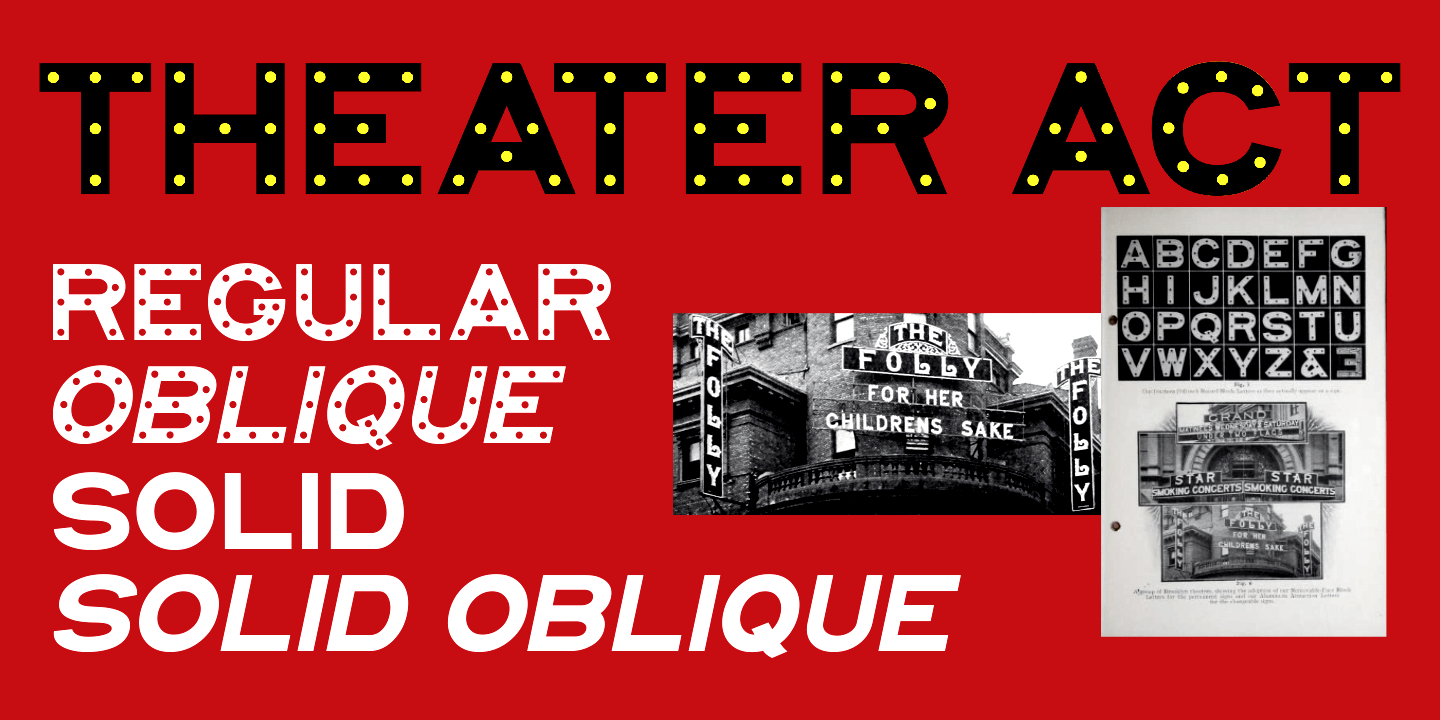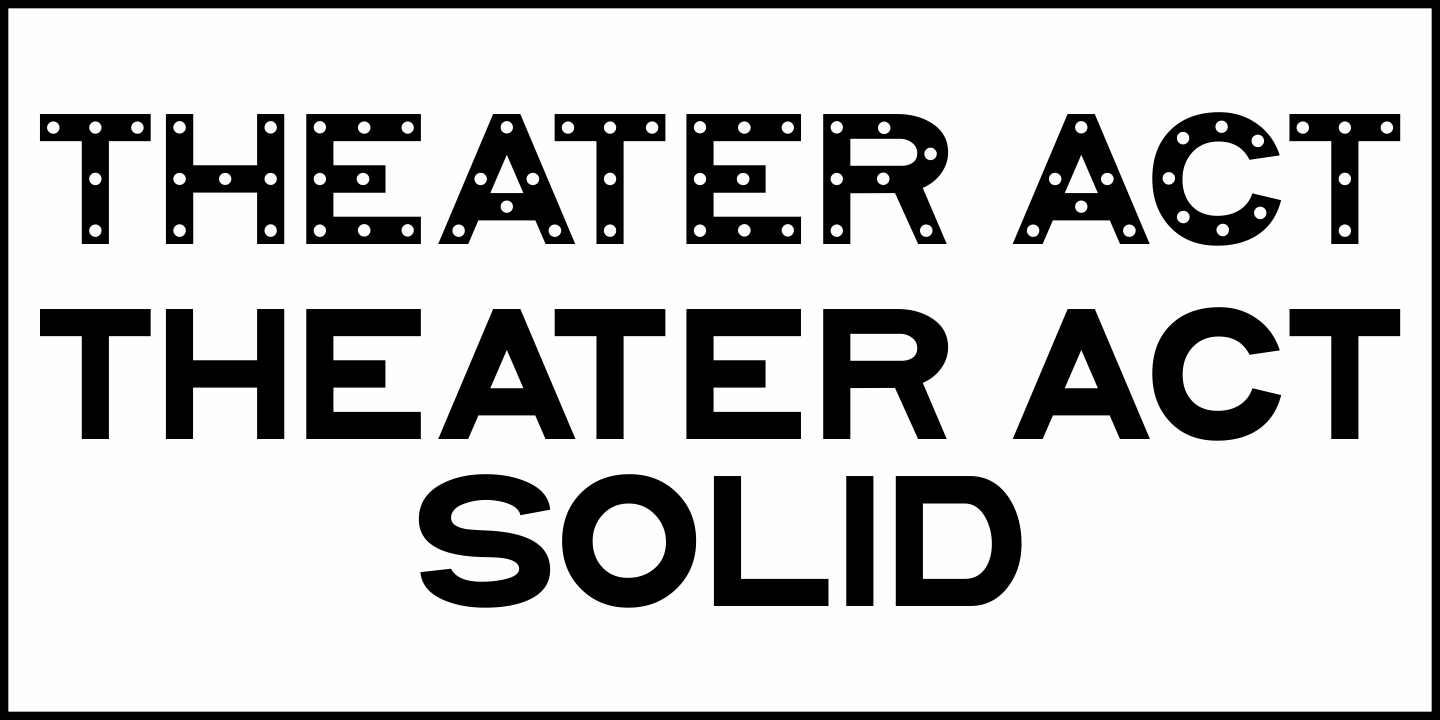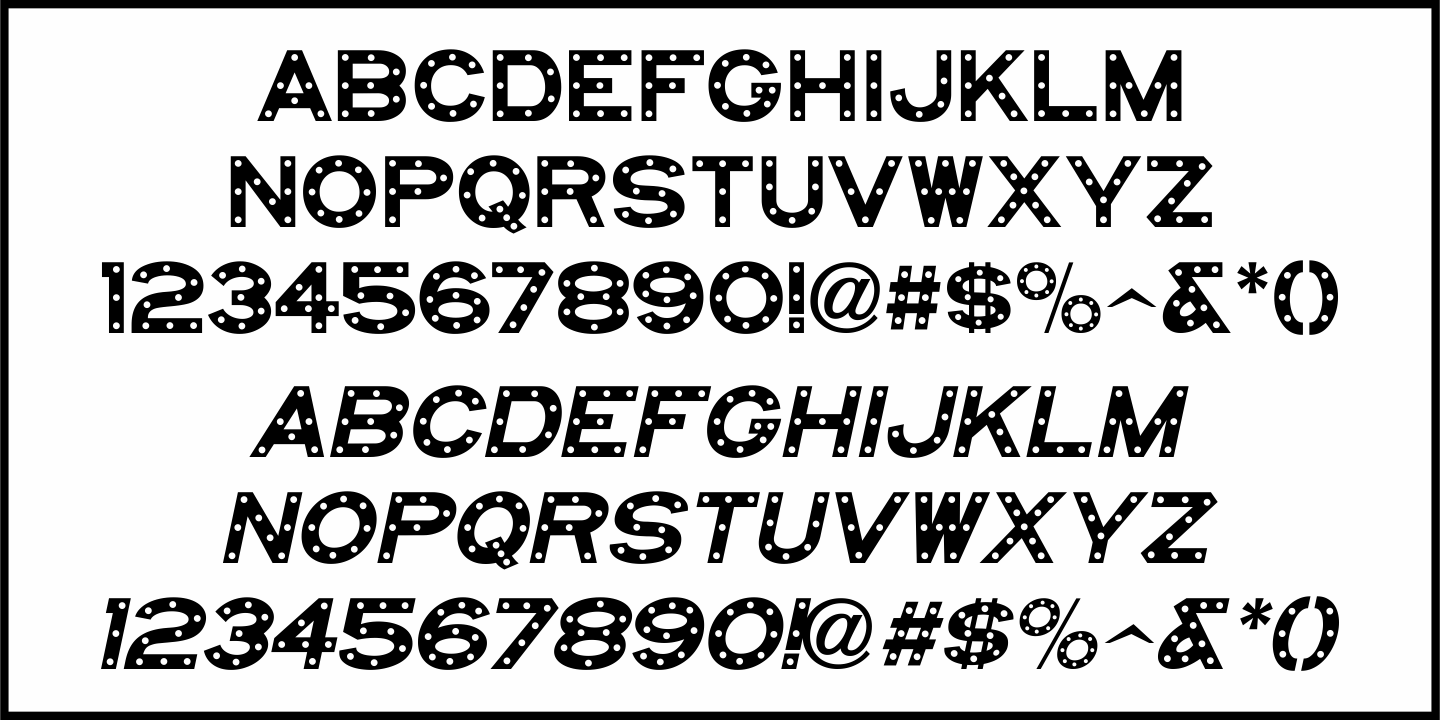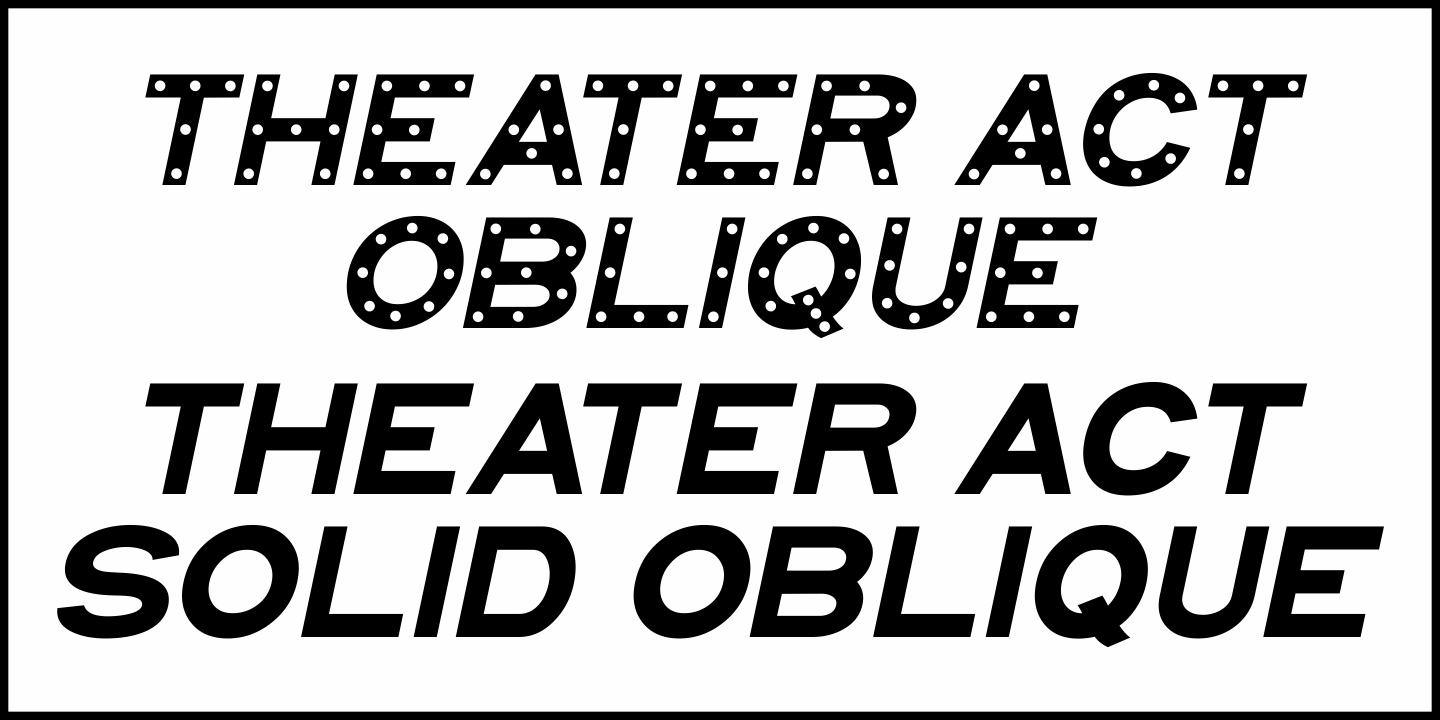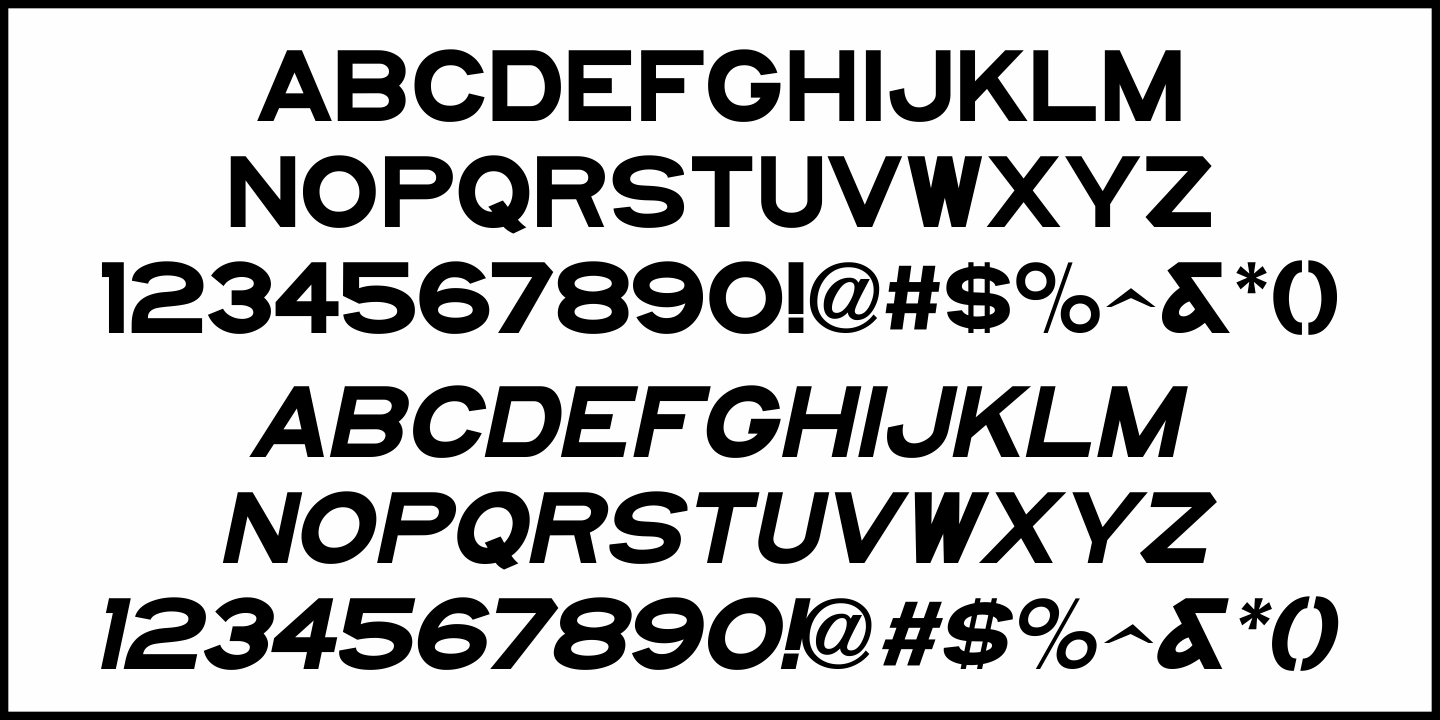
Theater Act
In the early days of illuminated theater signage, before fluorescent panels and interchangeable plastic letters were the norm, theater managers relied on prefabricated letters with sockets for holding incandescent bulbs to showcase their acts and movies.
One manufacturer of these letters was the Metropolitan Engineering Company located in Brooklyn, New York. A page from their 1906 Electric Signs catalog provided a set of characters which have new been recreated digitally as Theater Act JNL - available in both regular and oblique versions.
For those who want to use a color back fill or simply have an alternate version of this type design for contrasting text, there is also Theater Act Solid JNL - also in regular and oblique versions.